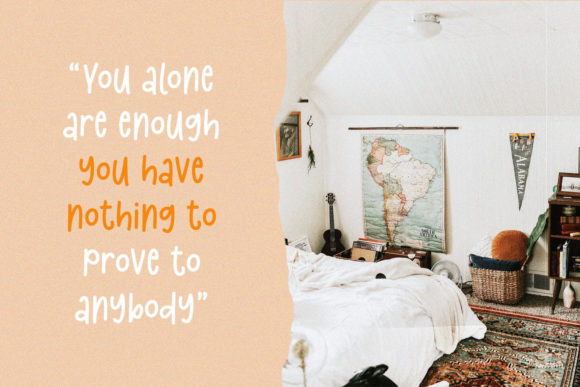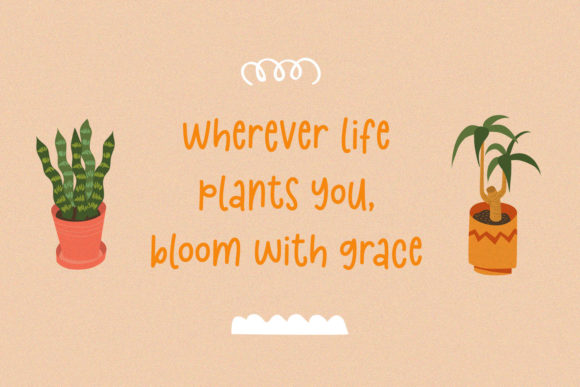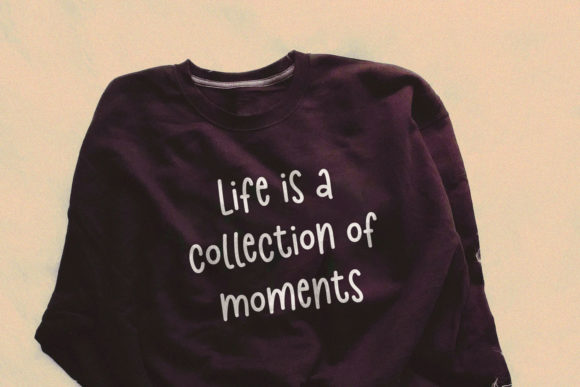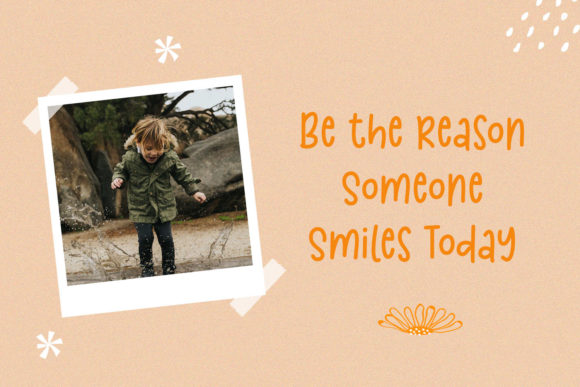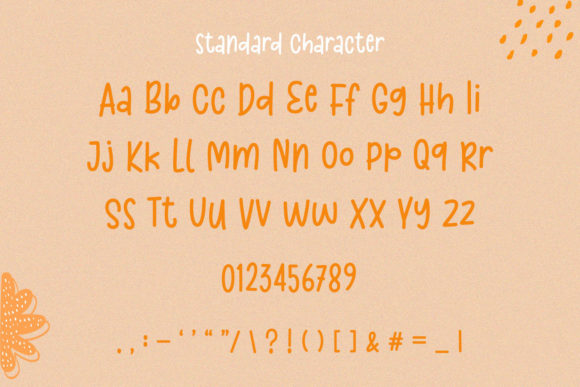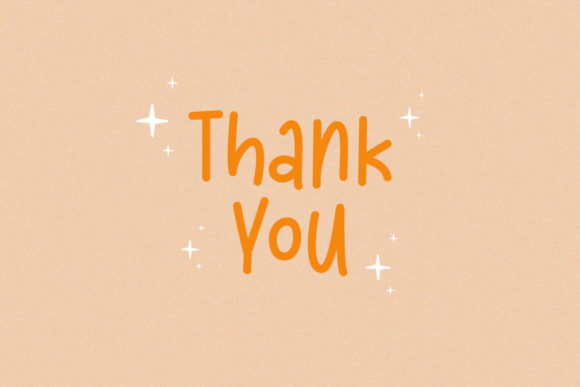
Introduction to Melisa Jasmine Font
Have you ever been working on a creative project and stumbled upon the perfect font to bring your vision to life? For designers, finding that one special font can be a game-changer. The Melisa Jasmine Font is one such treasure, exuding cuteness and charm in every letter.
Whether you’re creating a logo, flyer, or social media graphic, this lovely script font is sure to add a touch of sweetness to your design. With its beautiful and refreshing look, it’s no wonder that designers are flocking to use the Melisa Jasmine Font in their creative projects.
Key Features of Melisa Jasmine Font
- High-quality design resource ideal for creative projects requiring elegant typography
- Unique, handwritten font style with a touch of sophistication, perfect for adding a personal touch to designs
- Perfect for use in logos, branding materials, invitations, and other creative projects where a distinctive font is required
Honest Review: Melisa Jasmine Font
I recently had the opportunity to work with the Melisa Jasmine Font for a creative project, and I must say it was a pleasant experience. The font is a beautiful, elegant script that adds a touch of sophistication to any design.
Here are some of the things that work well with this font:
- ✨ High quality: The font is crisp and clear, making it perfect for printing or digital use.
- ⚠️ Limited font sizes: While the font looks great at most sizes, it can become a bit pixelated when enlarged.
- ⚠️ Limited customization options: While the font is beautiful, it’s not highly customizable, which can be a limitation for some designers.
Overall, I’m very impressed with the Melisa Jasmine Font. It’s a great addition to any designer’s toolkit, and I would highly recommend it as a design resource for creative projects.
Tips for Getting the Most Out of Melisa Jasmine Font
For the best results, use the Melisa Jasmine Font on a transparent background or with a high-contrast color scheme. This font is ideal for creative projects that require a unique and elegant touch.
The Melisa Jasmine Font is commonly used in design projects such as wedding invitations, branding materials, and digital art. Its high-quality design makes it a great resource for designers looking to add a touch of sophistication to their work.